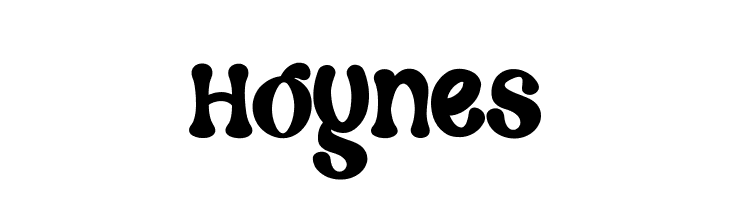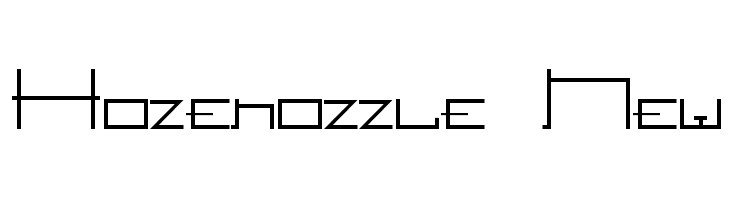
A bold, playful font with rounded, bubbly characters.
A bold, geometric font with a futuristic and digital aesthetic.
A geometric, futuristic font with a grid-like, angular design.
A bold, angular font with a medieval and fantasy-inspired design.
A bold, angular blackletter-inspired font with a dramatic and authoritative style.
A playful, hand-drawn font with a whimsical and informal style.
A bold, geometric font with sharp angles and a futuristic style.